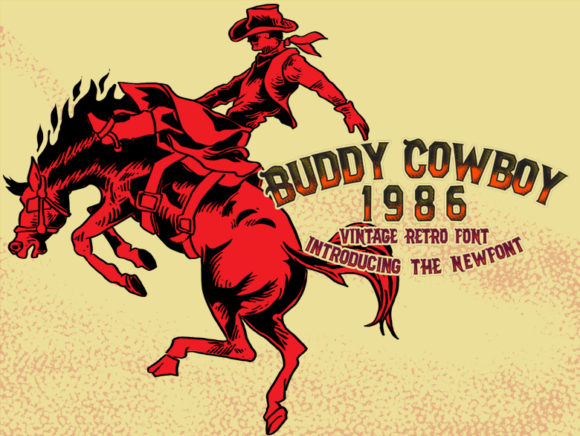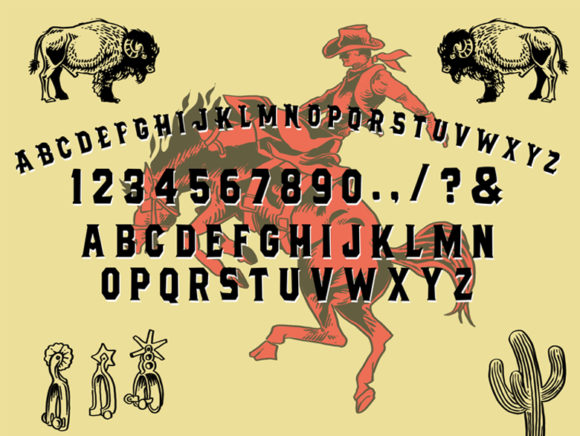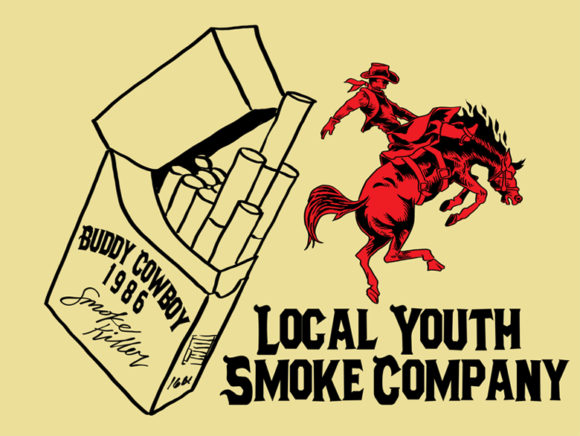
Time to Saddle Up Your Creativity
As a designer, you’ve probably experienced that magical moment when inspiration strikes – the spark that sets your imagination ablaze and propels you to create something truly remarkable. For many of us, this moment often comes from a deep appreciation for the past, and the nostalgia that comes with it. Perhaps you’re reminiscing about the Wild West, or the carefree days of childhood.
Whatever the spark, it’s about to ignite a fire with the introduction of the Buddy Cowboy 1986 Font – a bold display font that embodies the spirit of American vintage charm. With its authentic nuance and rustic flair, this font is the perfect tool to breathe life into your crafting projects. Whether you’re designing posters, artwork, or social media posts, the Buddy Cowboy 1986 Font will help you create outstanding logos and eye-catching graphics that leave a lasting impression.
Buddy Cowboy 1986 Font Key Features
- Font Family: Buddy Cowboy 1986
- Unique Characteristics: The font features a distressed, worn look reminiscent of 1980s western-inspired designs, making it ideal for retro-themed projects, such as vintage advertisements, posters, and websites.
Buddy Cowboy 1986 Font Review
I recently had the chance to work with the Buddy Cowboy 1986 font, and I must say it’s a unique addition to any design project. ✨ The font’s distressed, retro vibe immediately caught my attention, and it’s perfect for creating a nostalgic feel in your designs.
- The font’s versatility is impressive. It can be used for a wide range of projects, from posters to logos, and even digital interfaces.
- The font’s rough texture adds a nice layer of depth to your designs, making them stand out.
- The font’s boldness is also noteworthy, making it perfect for creating eye-catching headlines.
However, I do have some reservations about the font. ⚠️ One of the main limitations is that it may not be suitable for all types of projects. The font’s distressed look can be overwhelming if not used tastefully, and it may not be the best choice for more minimalist designs.
Overall, I think the Buddy Cowboy 1986 font is a great addition to any designer’s toolkit. While it may not be perfect for every project, it’s definitely worth exploring if you’re looking to add some grit and personality to your designs.
The Buddy Cowboy 1986 Font is ideal for retro-themed designs, such as:
- Retro-style posters and flyers.
- Western-themed designs, such as cowboy boots and hats.
- Old-school video game-inspired graphics.
For the best results, use the font in conjunction with complementary colors and graphics that evoke a retro feel.
Alternatives to Buddy Cowboy 1986 Font
Courier New
Courier New is a classic monospaced font that was designed to mimic the look of a typewriter. It is a good choice for designers who need a font that is easy to read in a fixed-width format. Courier New is a bit more formal than Buddy Cowboy 1986 Font and has a more traditional feel.
Rockwell
Rockwell is a serif font that was designed to be used in body text. It has a strong, classic feel that is similar to Buddy Cowboy 1986 Font, but with a more traditional look. Rockwell is a good choice for designers who need a font that is easy to read in large blocks of text.
Playfair Display is an elegant serif font that is perfect for use in titles and headings. It has a more luxurious feel than Buddy Cowboy 1986 Font and is a good choice for designers who need a font that is eye-catching and sophisticated.
Andale Mono
Andale Mono is a monospaced font that is similar to Courier New. It is a good choice for designers who need a font that is easy to read in a fixed-width format and has a more modern feel than Courier New.
Creative Projects Using Buddy Cowboy 1986 Font
Project 1: Retro-Themed Menu Board
Create a unique and eye-catching menu board for a restaurant or cafe with a retro theme. The Buddy Cowboy 1986 Font is perfect for this project, adding a nostalgic touch to your design.